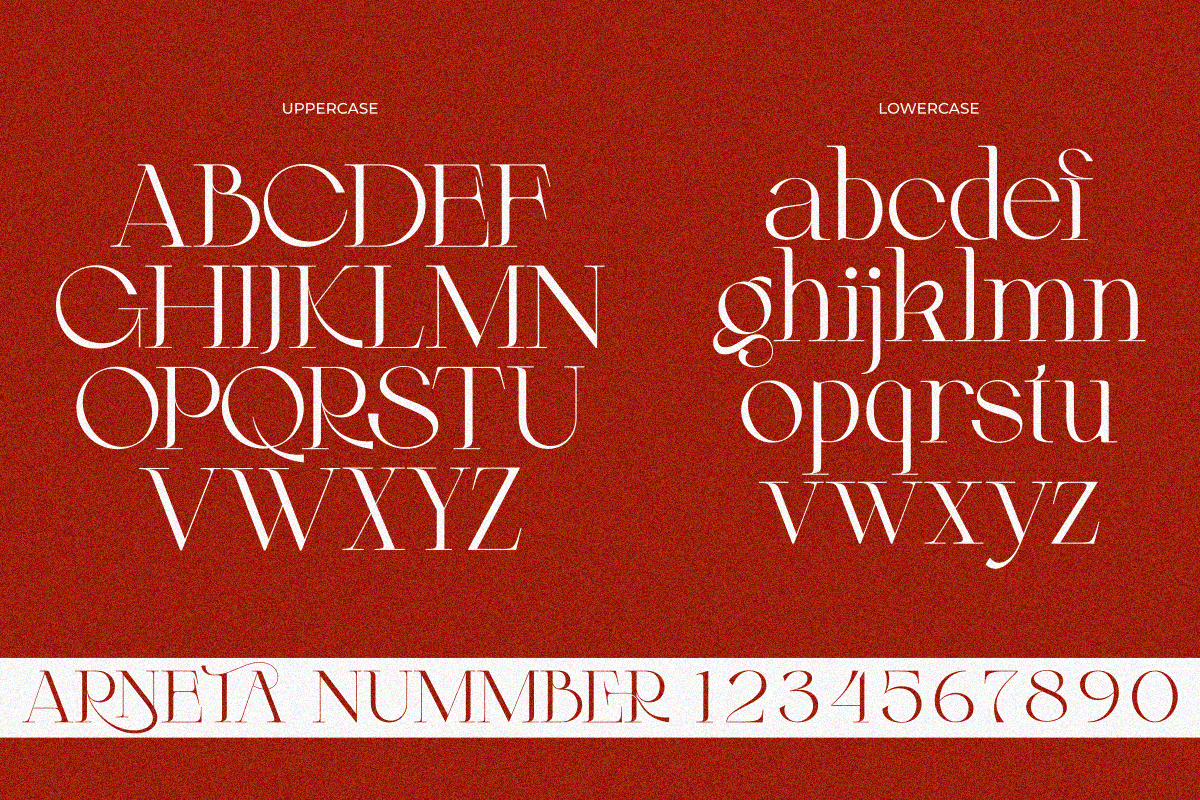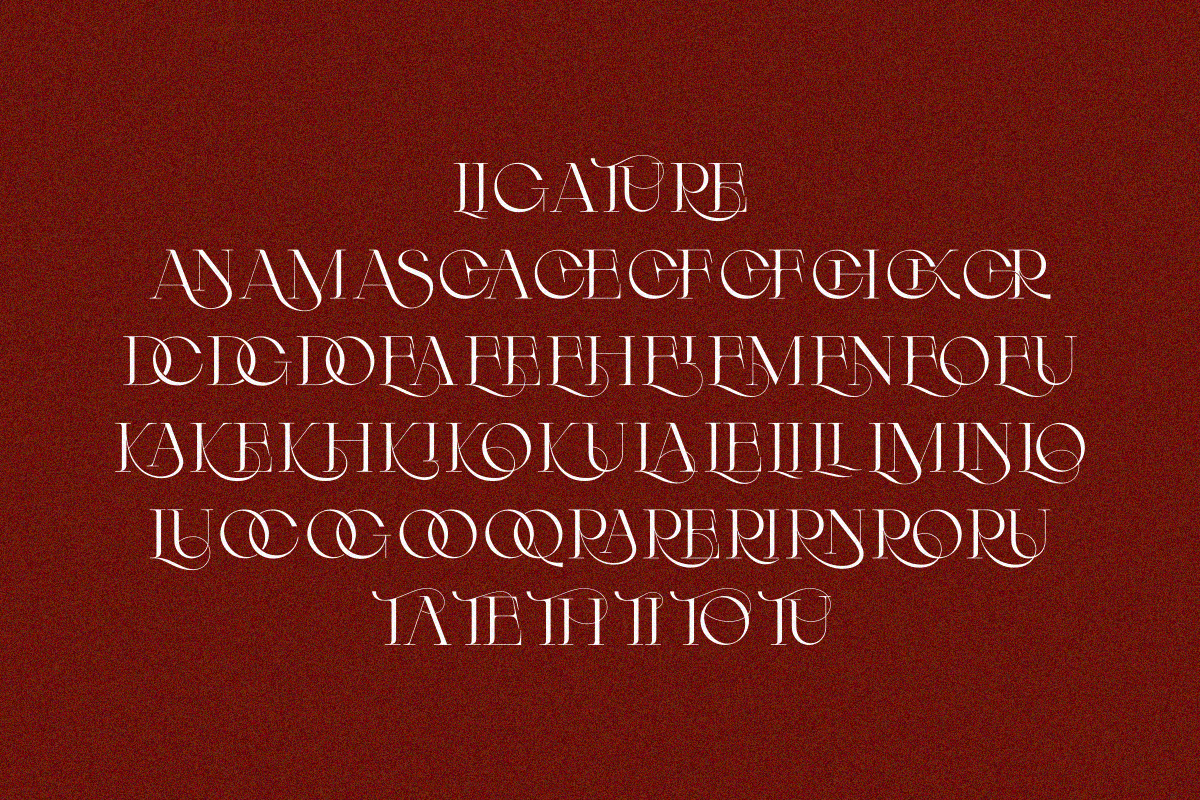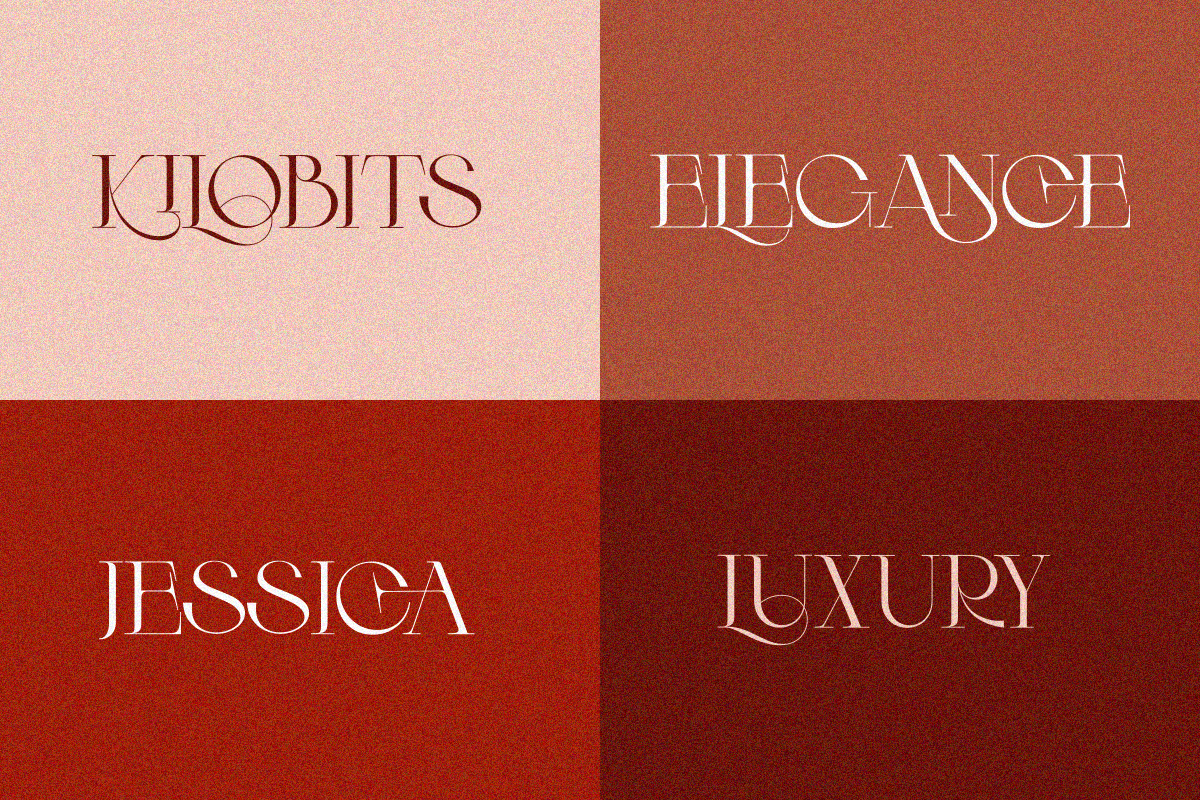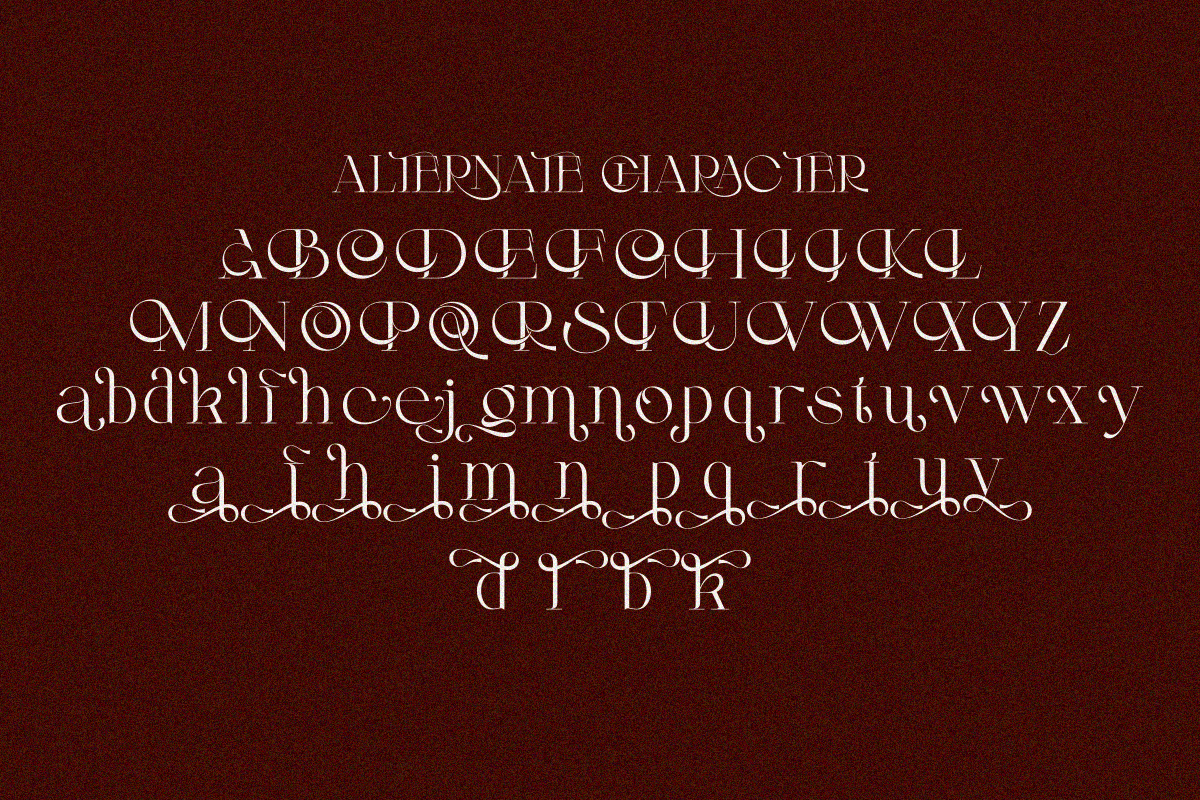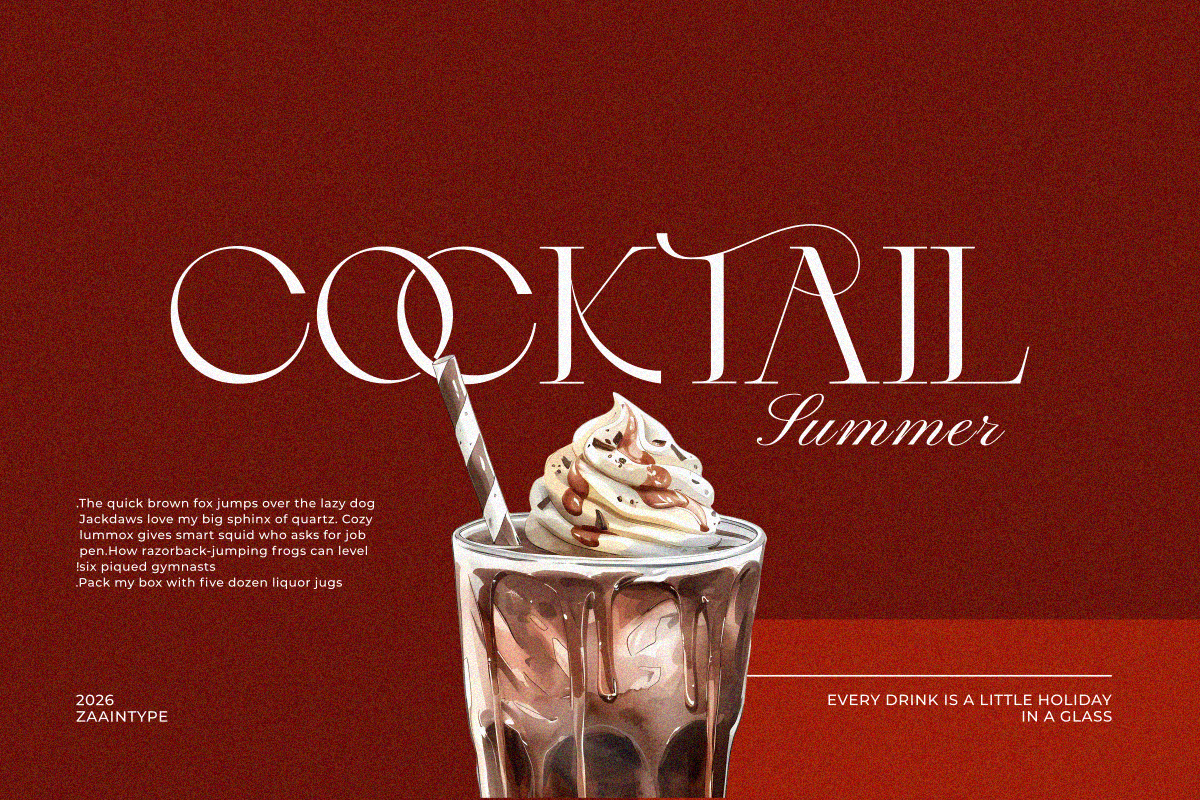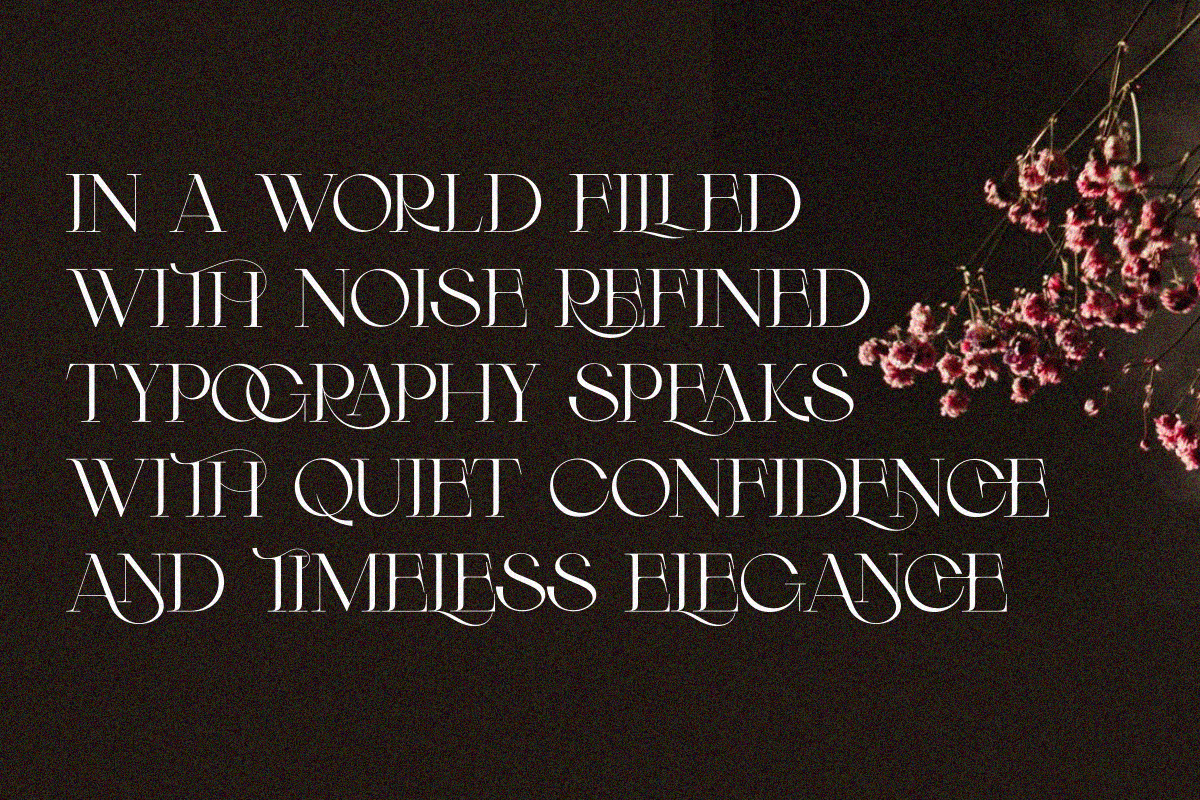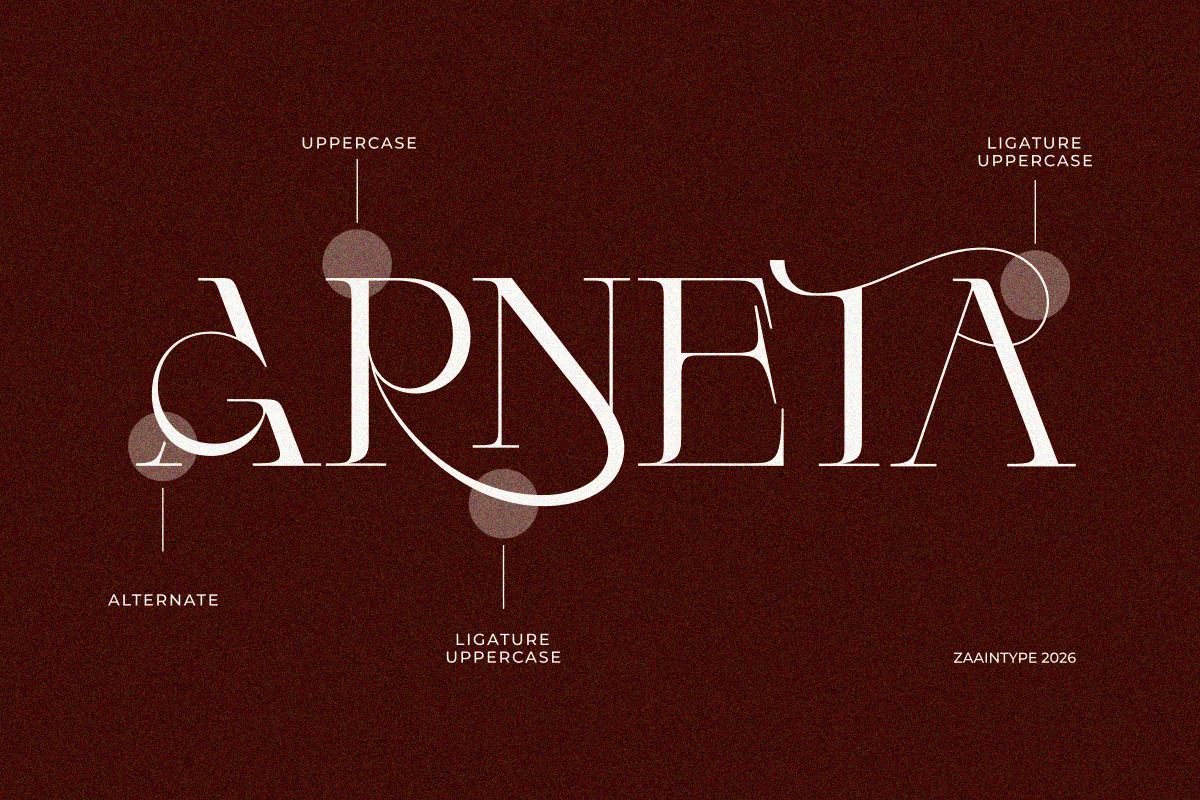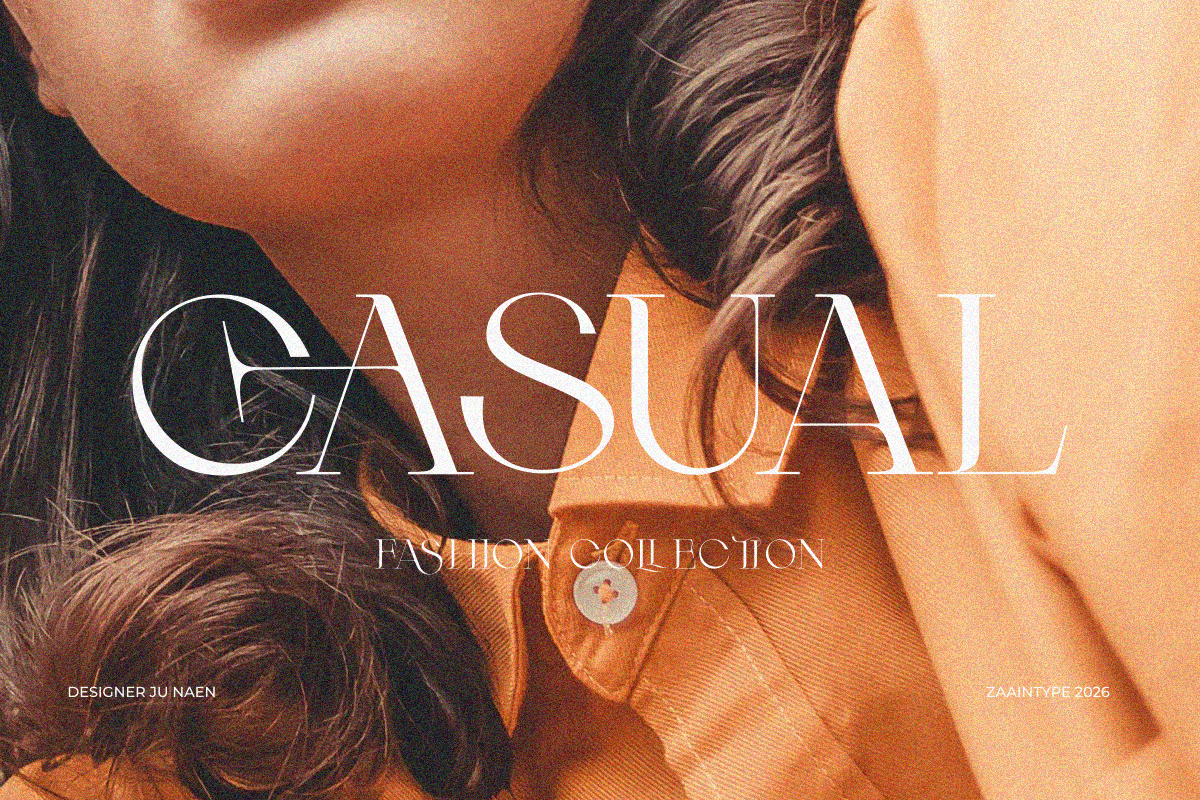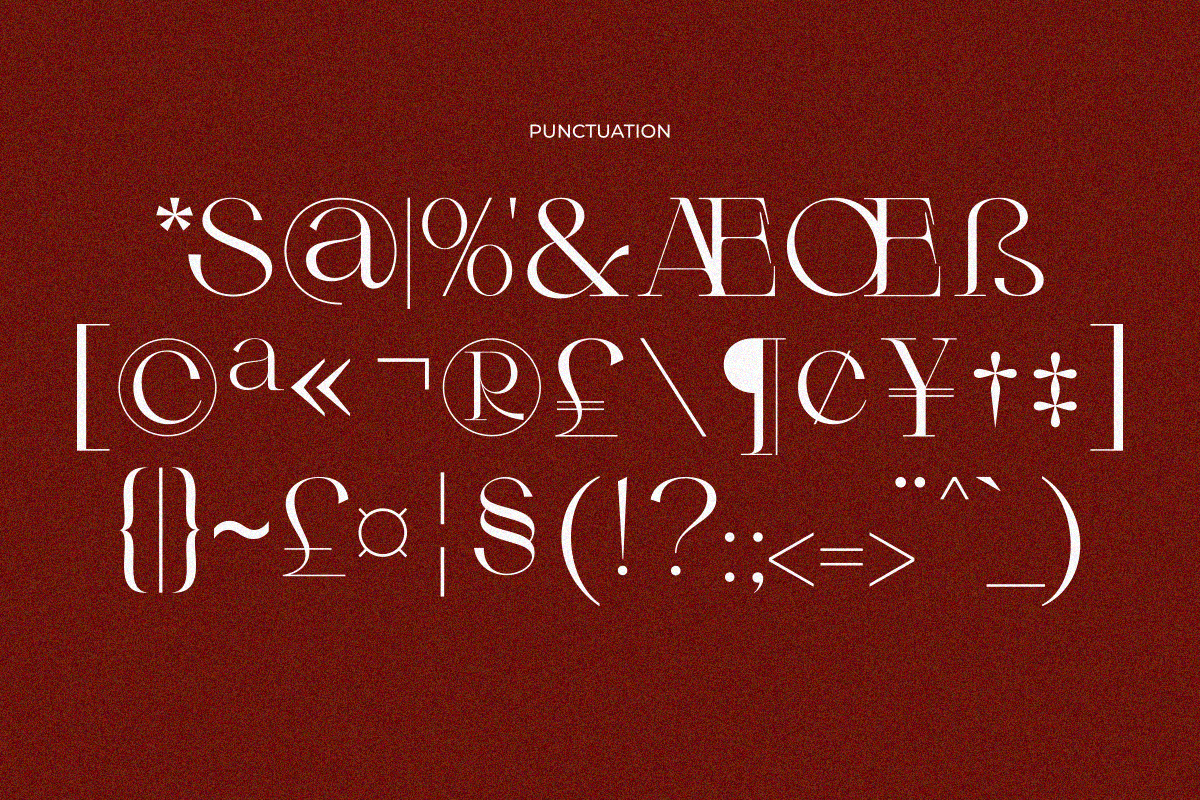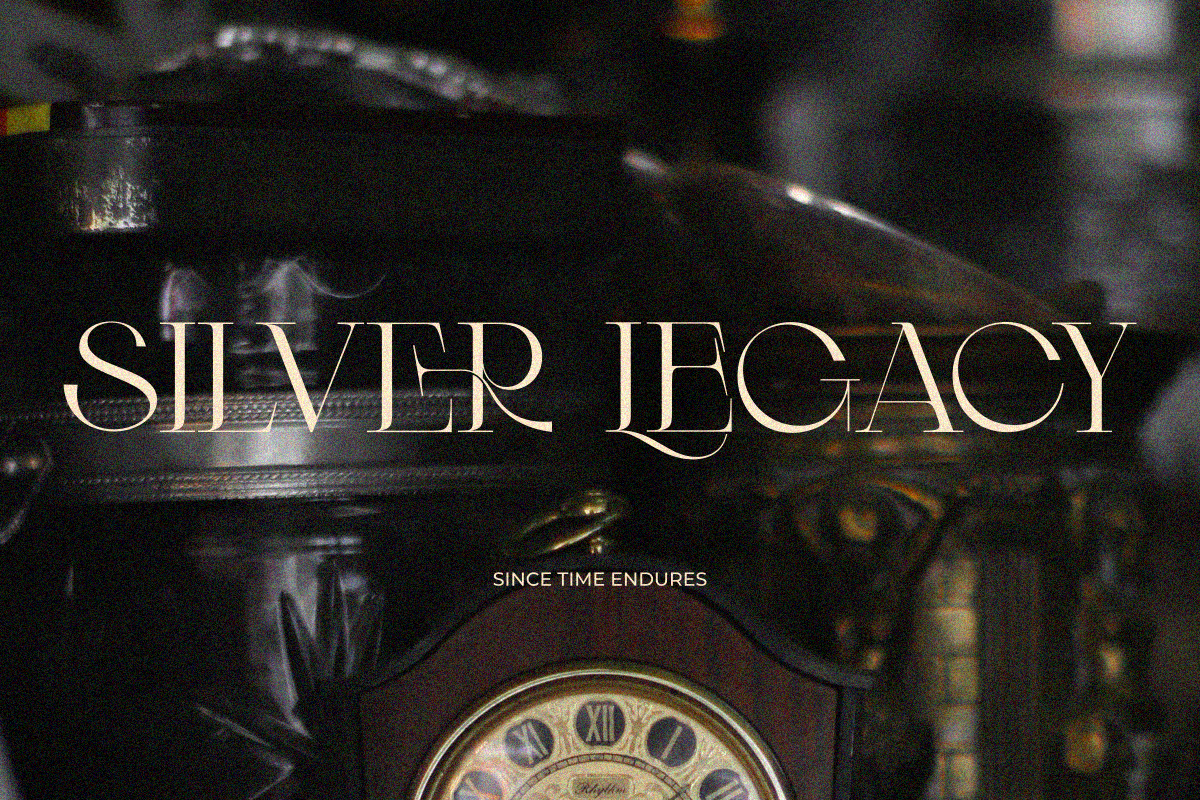
Arneta
Arneta is a modern serif font that combines timeless elegance with a refined contemporary touch. Designed with graceful high-contrast letterforms and stylish details, it brings a sophisticated look to any creative project.
Perfect for branding, logos, editorial design, fashion, beauty packaging, invitations, and luxury marketing materials, Arneta offers both beauty and versatility. Whether used for bold headlines or elegant typography, it creates a polished and memorable impression